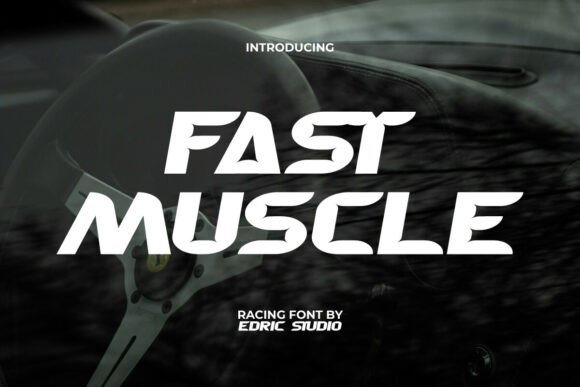
Fast Muscle: The Ultimate Racing Typeface
In the high-stakes world of visual communication, a single typeface can define the energy and direction of an entire brand. Ignite your projects with the adrenaline-pumping energy of the Fast Muscle font, a hyper-aggressive, speed-inspired racing typeface designed to command attention. For graphic designers seeking to convey raw power and forward momentum, this bold, all-caps structure offers a distinctive aesthetic that transcends standard typography trends.
The Fast Muscle font is not merely a decorative element; it is a strategic asset for creating impactful visual identities. With its sharp angles and aerodynamic posture, it perfectly captures the look and feel of high-performance automotive branding and motorsport graphics. By integrating unique cuts and slanted stresses, the text achieves a sense of motion even when static on the page. This makes it an essential tool for designers aiming to communicate speed, action, and competitive spirit in their creative assets.
Defining Visual Impact Through Typography
Typography serves as the backbone of effective design, influencing how audiences perceive a message before they read a single word. In modern aesthetics, the choice between a clean sans-serif and a dynamic display font like Fast Muscle can shift a project's tone from professional to explosive. When used correctly, this typeface enhances visual hierarchy, drawing the eye immediately to key headlines or calls to action. It is particularly effective in contexts where urgency and strength are paramount.
Designers must consider readability alongside stylistic flair. While Fast Muscle delivers a muscular visual punch, its application requires careful planning to ensure legibility across different mediums. Whether designing for print or digital screens, maintaining a balance between aggressive styling and clear communication is crucial for a polished professional presentation.
Practical Applications Across Industries
The versatility of the Fast Muscle typeface extends far beyond car magazines. Its high-octane aesthetic makes it suitable for a wide range of creative projects where impact is the primary goal:
- Branding and Logo Design: Create memorable logos for sports teams, gaming clans, or fitness brands that need to project strength and agility.
- Marketing Materials: Design eye-catching poster graphics, flyers, and brochures for events, product launches, or promotional campaigns.
- Social Media Graphics: Generate scroll-stopping content for platforms like Instagram and TikTok, where visual hooks determine engagement rates.
- Web and UI Design: Use the font sparingly for hero sections or button labels to add excitement to user interfaces without compromising UX design principles.
- Editorial Layouts: Enhance magazine covers or feature articles related to technology, extreme sports, or entertainment with striking headlines.
- Packaging Design: Differentiate products on crowded shelves by using bold typography that suggests premium quality and performance.
- Merchandise: Apply the design to apparel, stickers, and accessories to build a cohesive brand identity around themes of speed and power.
Strategic Implementation for Maximum Effect
To leverage the full potential of Fast Muscle, designers should focus on consistency within their brand identity systems. A powerful font can easily overwhelm a layout if not balanced with adequate white space and complementary elements. Pairing this aggressive typeface with simpler, neutral fonts for body text ensures that the design remains readable while retaining its energetic edge.
Color palette selection also plays a vital role in amplifying the font's impact. High-contrast combinations, such as neon accents against dark backgrounds, often work best to highlight the sharp geometry of the letters. Additionally, consider the scalability of the design. Ensure that the intricate details of the Fast Muscle font remain crisp when resized for various applications, from large billboards to mobile app icons.
Evaluating audience expectations is another critical step. If your target demographic values tradition and stability, this racing-inspired typeface might be too intense. However, for markets focused on innovation, youth culture, or competitive industries, the fast and furious vibe aligns perfectly with consumer desires. Always test your designs across different devices and formats to guarantee a seamless experience.
Ultimately, thoughtful design choices elevate both aesthetics and communication. By selecting quality creative assets like the Fast Muscle font, you empower your projects to stand out in a saturated digital landscape. Whether you are crafting a new logo, launching a marketing campaign, or rebranding a business, the right typography can transform a good idea into an unforgettable visual experience built to race toward success.